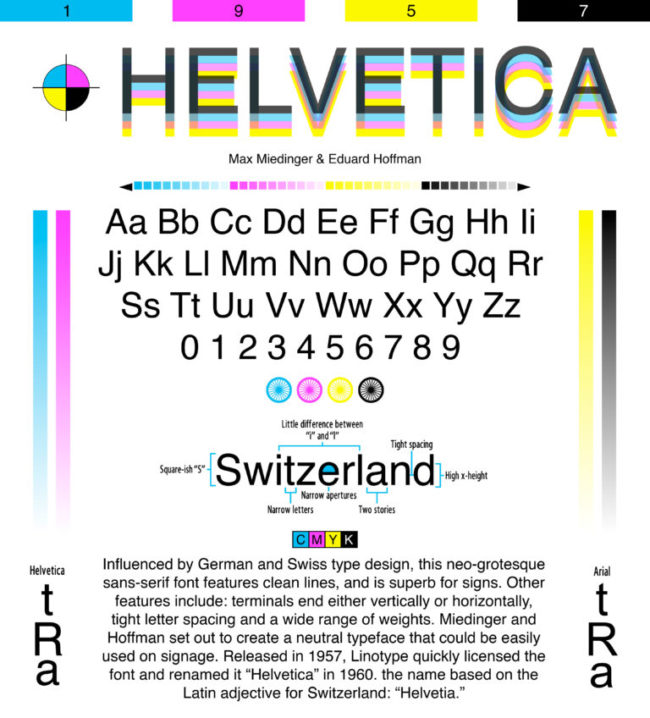
Font of the Week – Helvetica
With assistance form Eduard Hoffmann, Swiss typeface designer Max Miedinger created Helvetica in 1957. Its tight and narrow spacing is one of its most recognizable qualities, but limits its legibility onscreen and at small print sizes. Nevertheless, Helvetica is widely used in many company logos. For example, American Apparel, BMW, Nestlé, Skype, and Target all use versions of the font. Even the U.S. government uses widely uses the typeface—federal income tax forms are set in Helvetica.